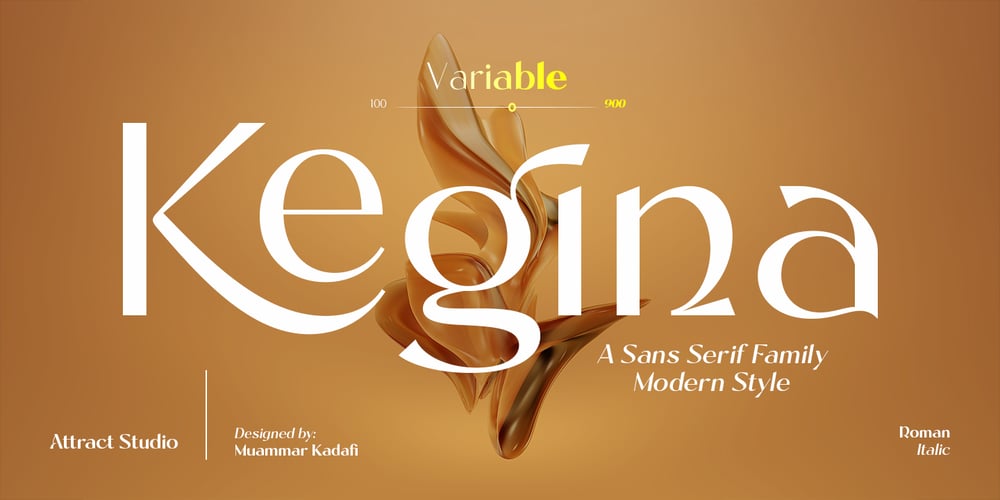
Kegina Font Family was designed by Muammar Kadafi and published by Attract Studio. Kegina contains 19 styles and family package options. Kegina is a sans serif font family with sharp curves that look clean in a minimalist look.Kegina is equipped with a variety of attractive font alternatives and natural ligature bonds, each version of the Roman style equipped with an Italic style version to produce your extraordinary design needs.Include: 18 Weights (Roman & Italic) 1 Variable Font Replacement & Binding OpenType support Multilingual PUA Encoded.